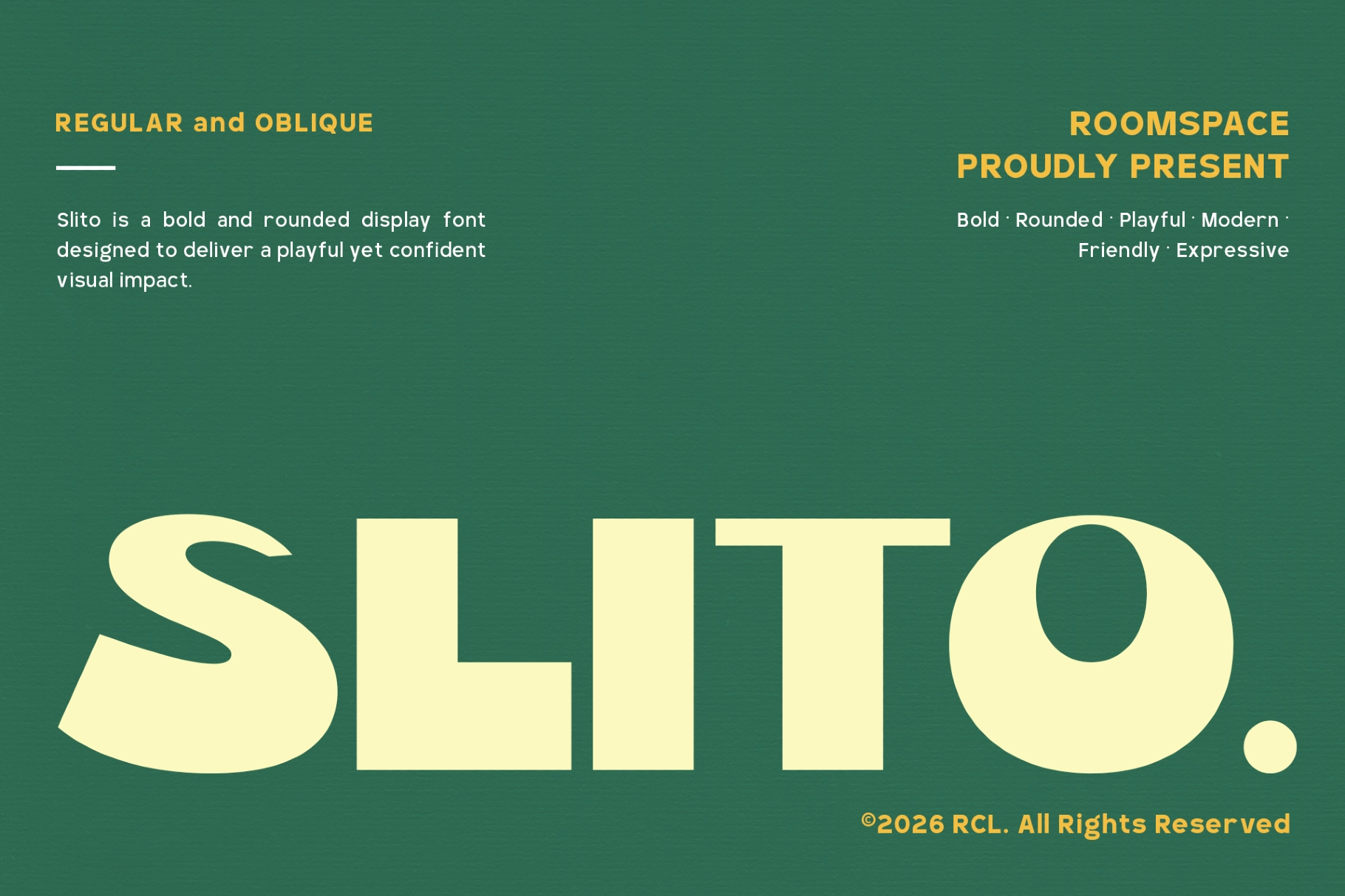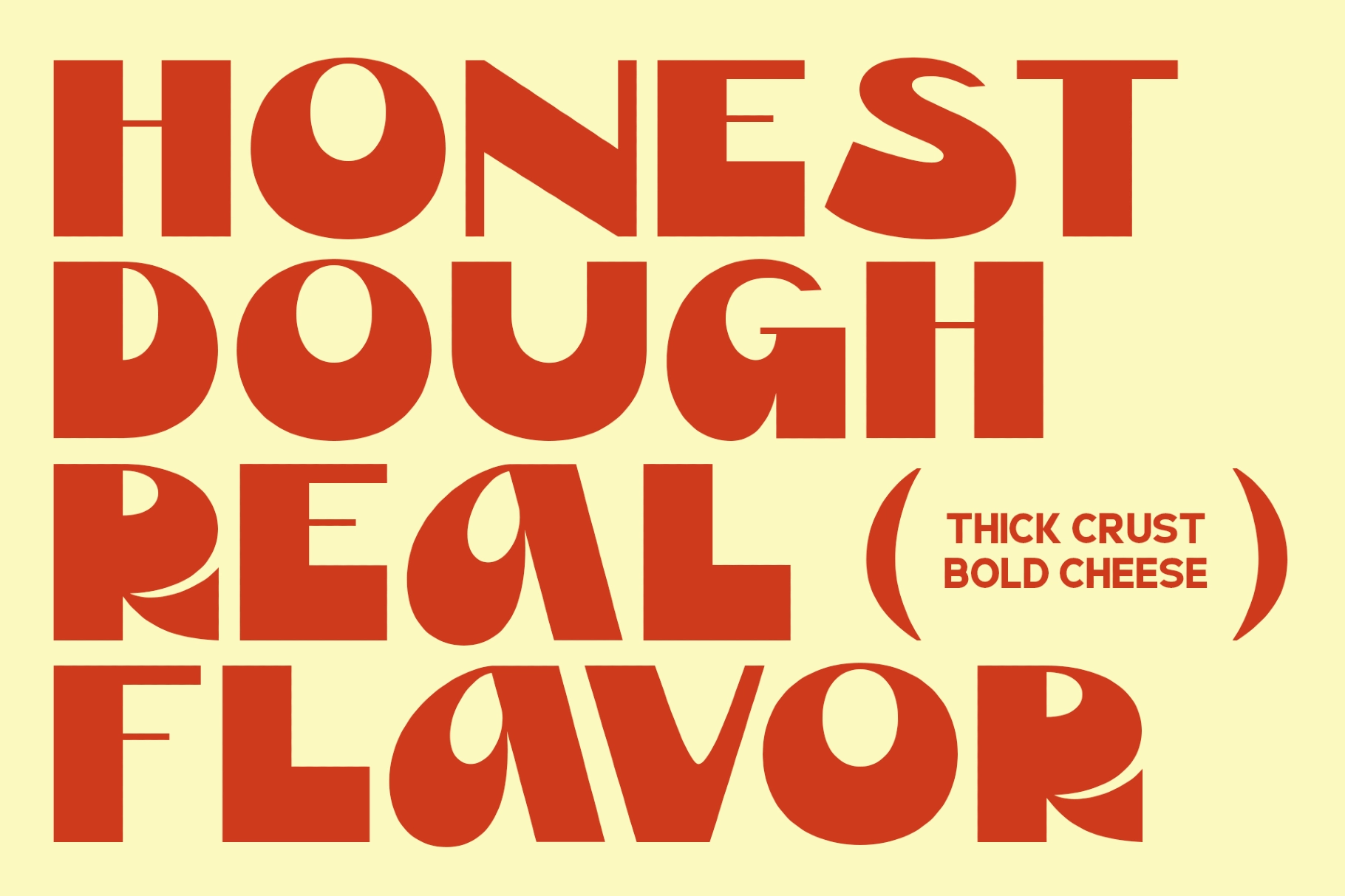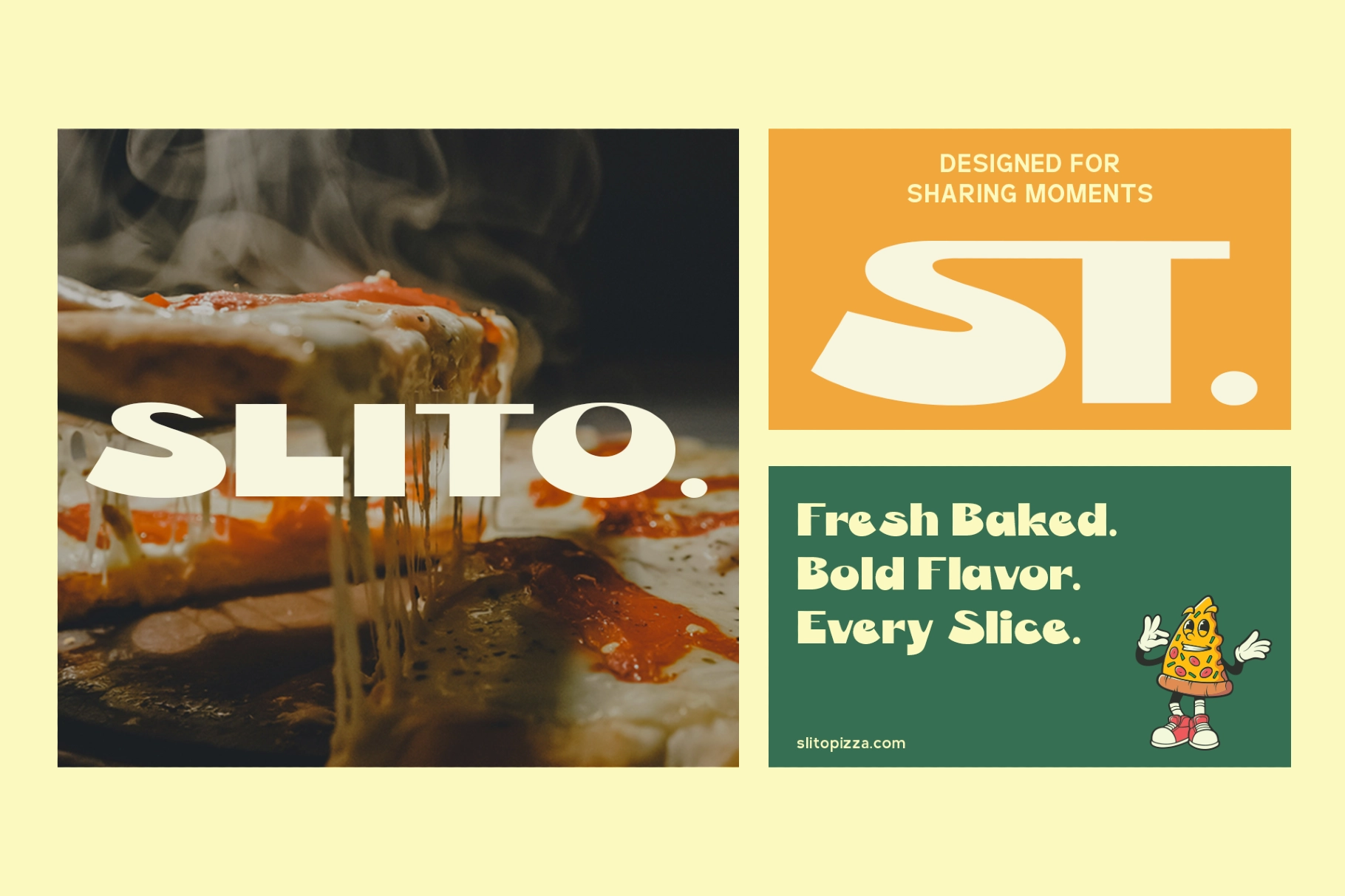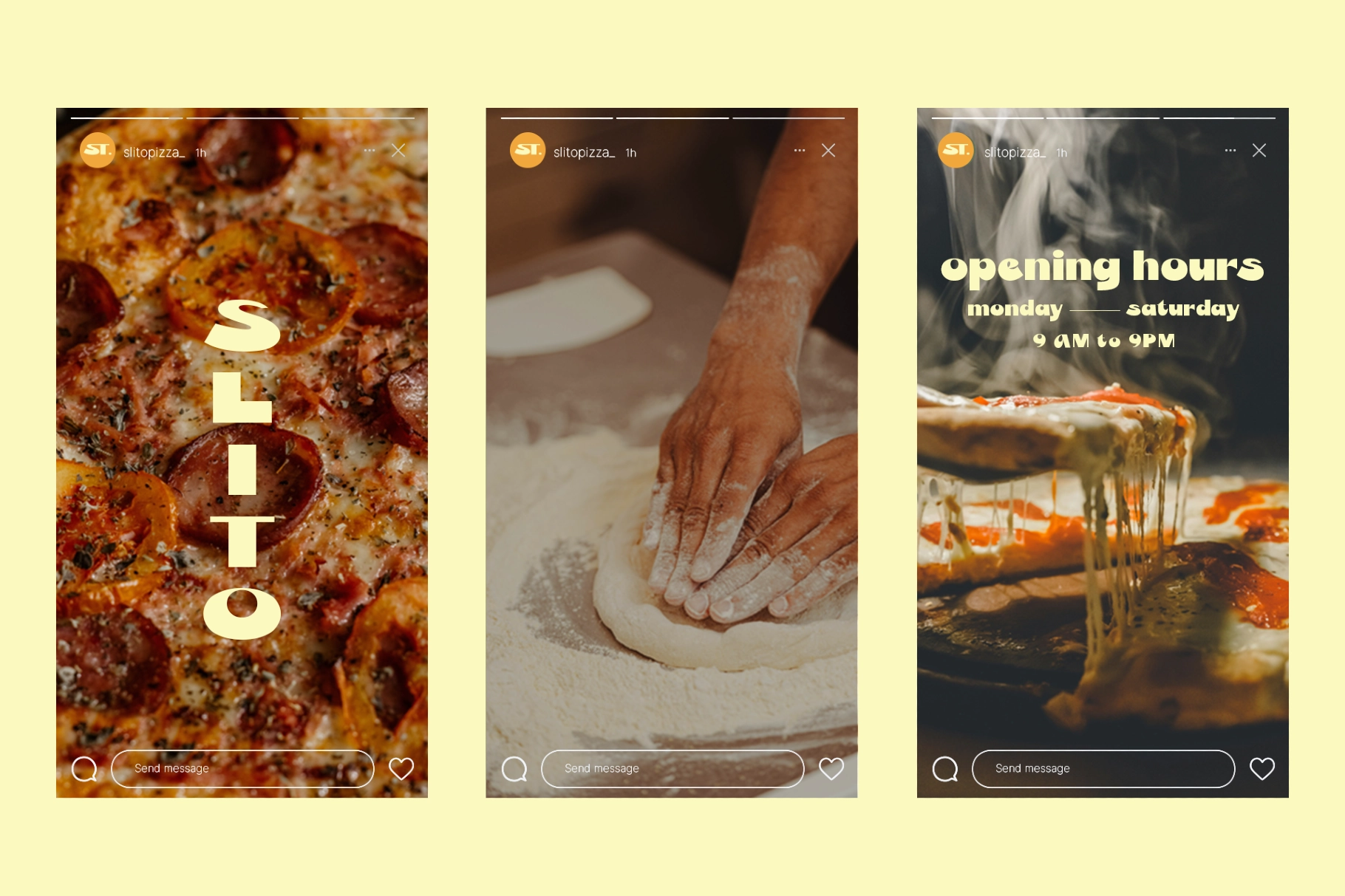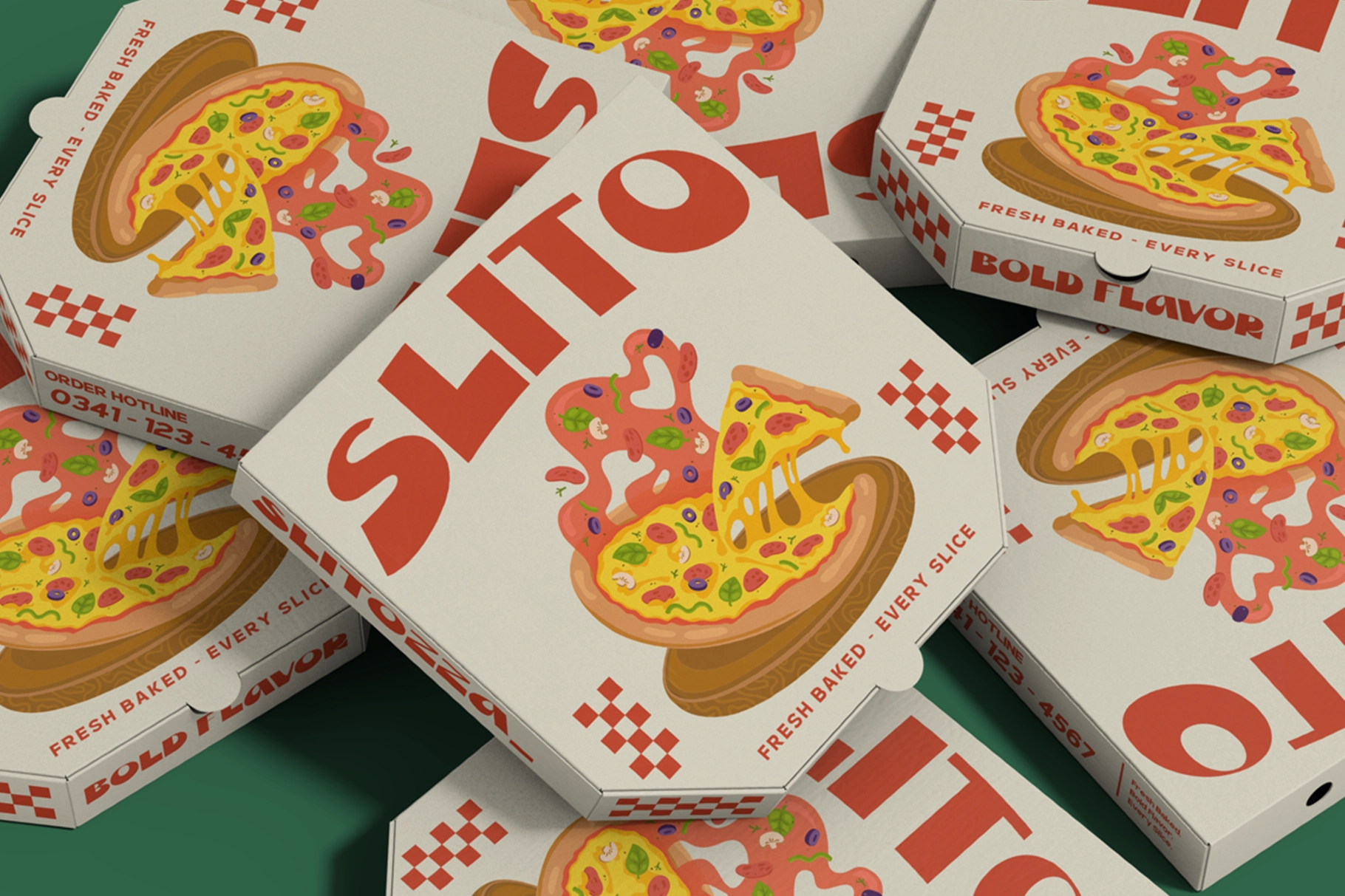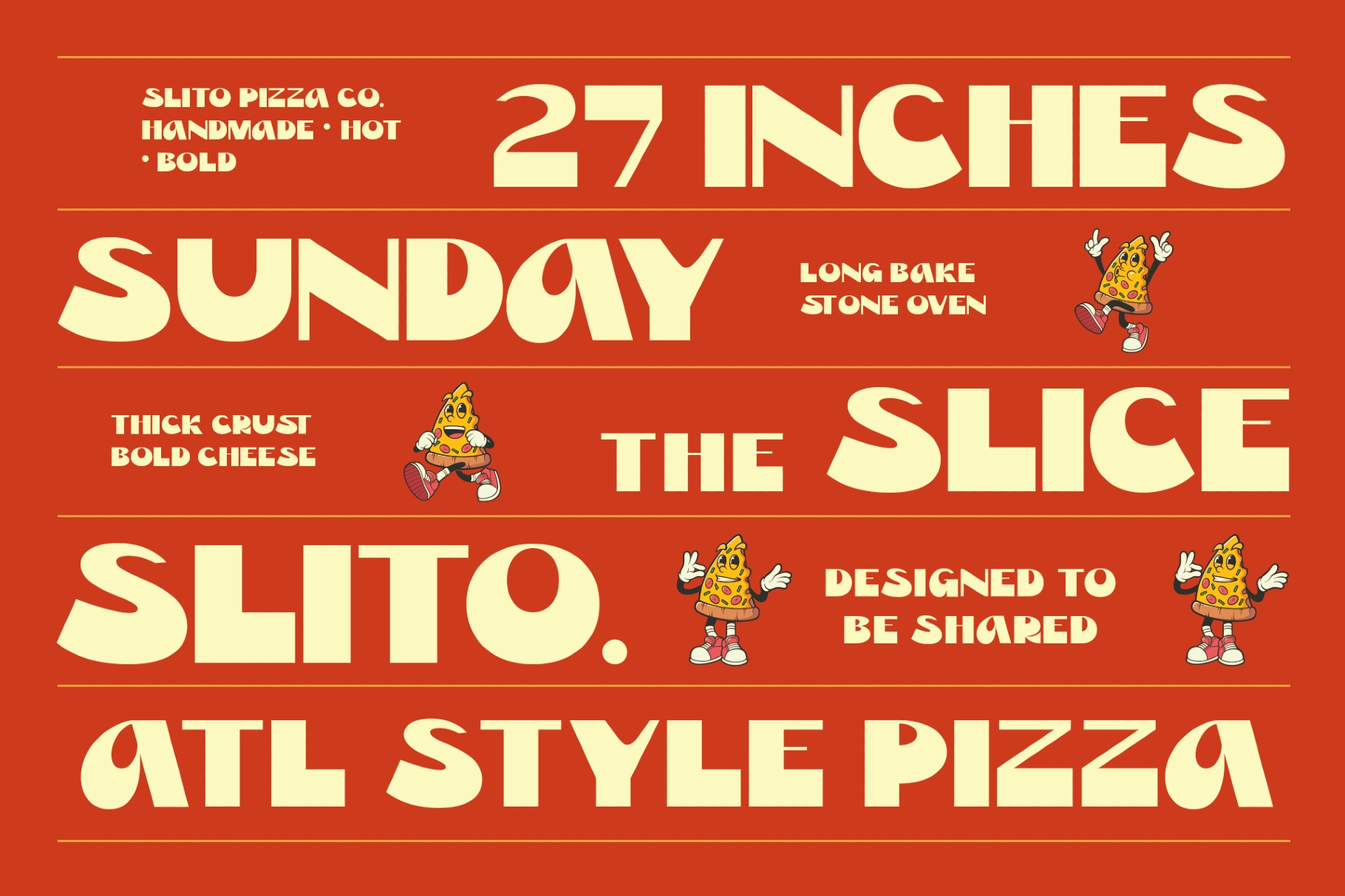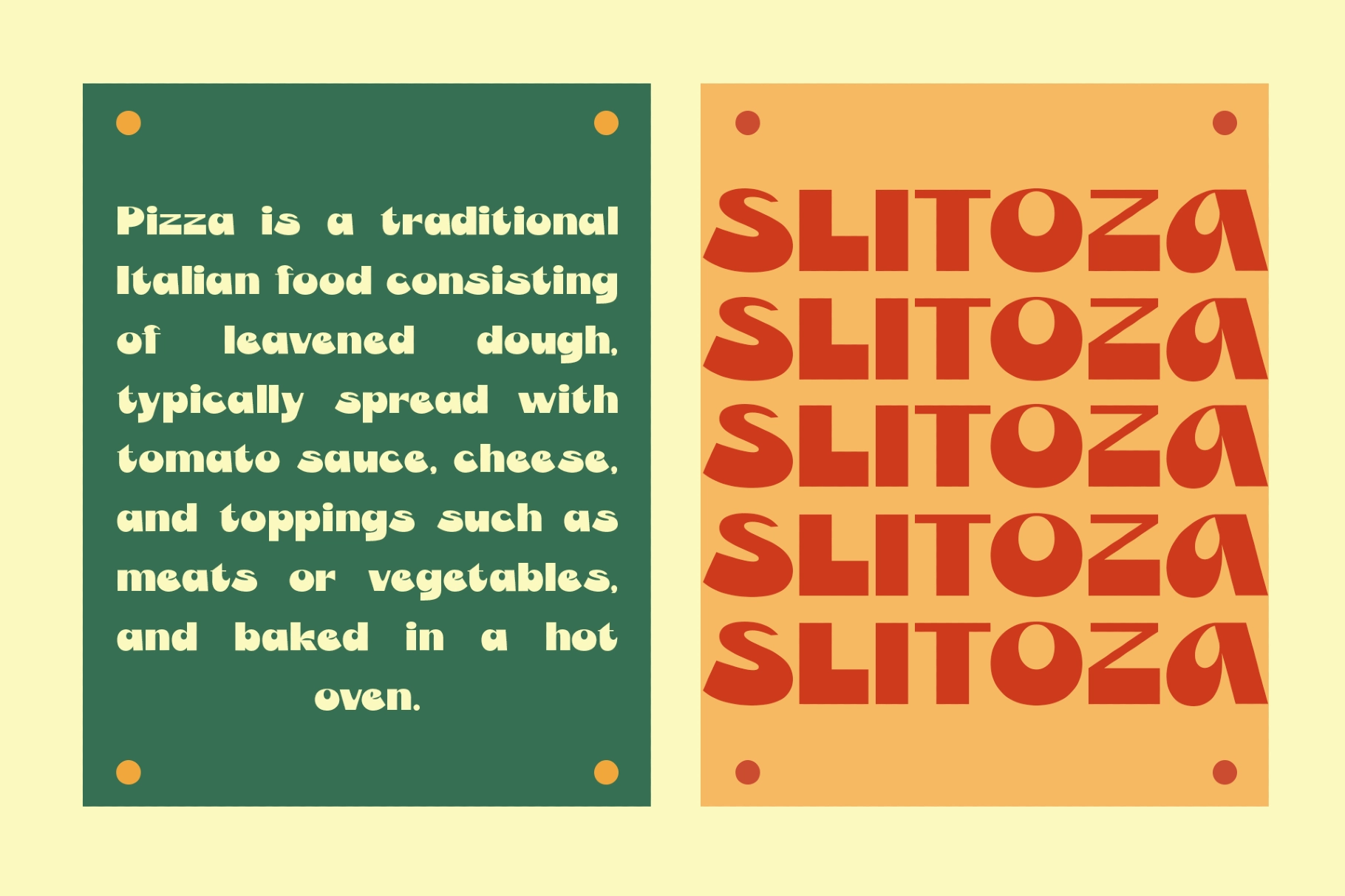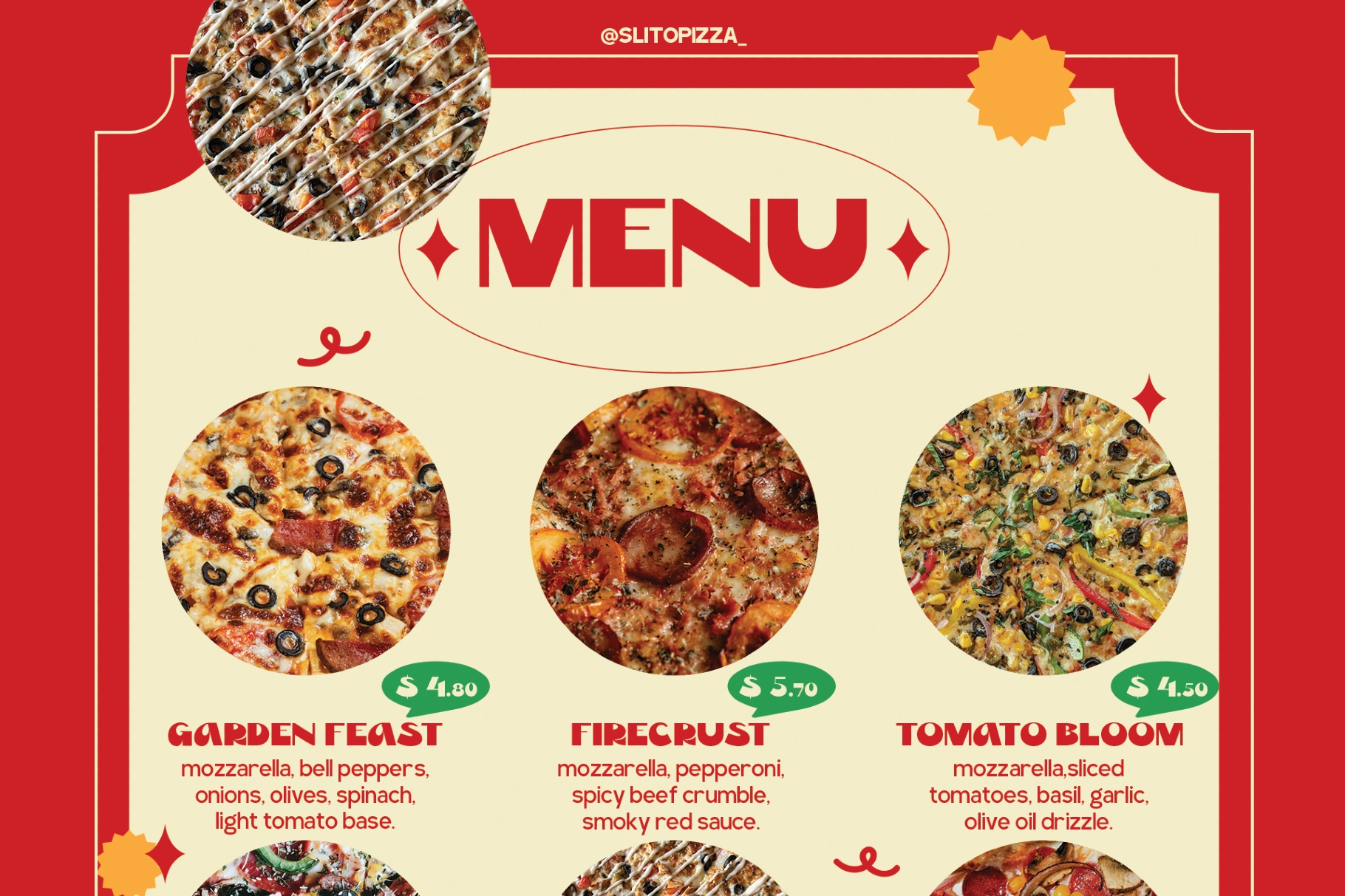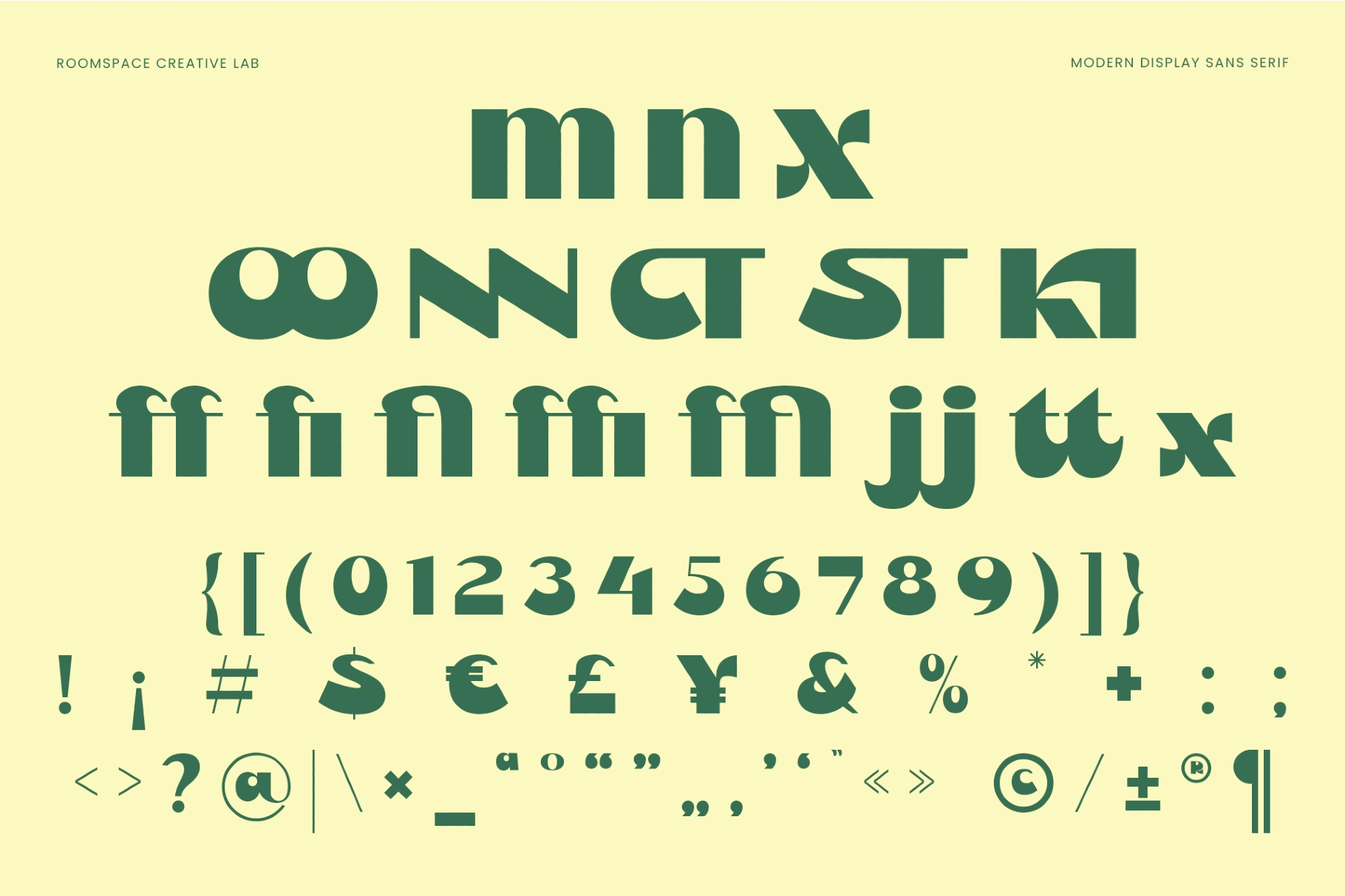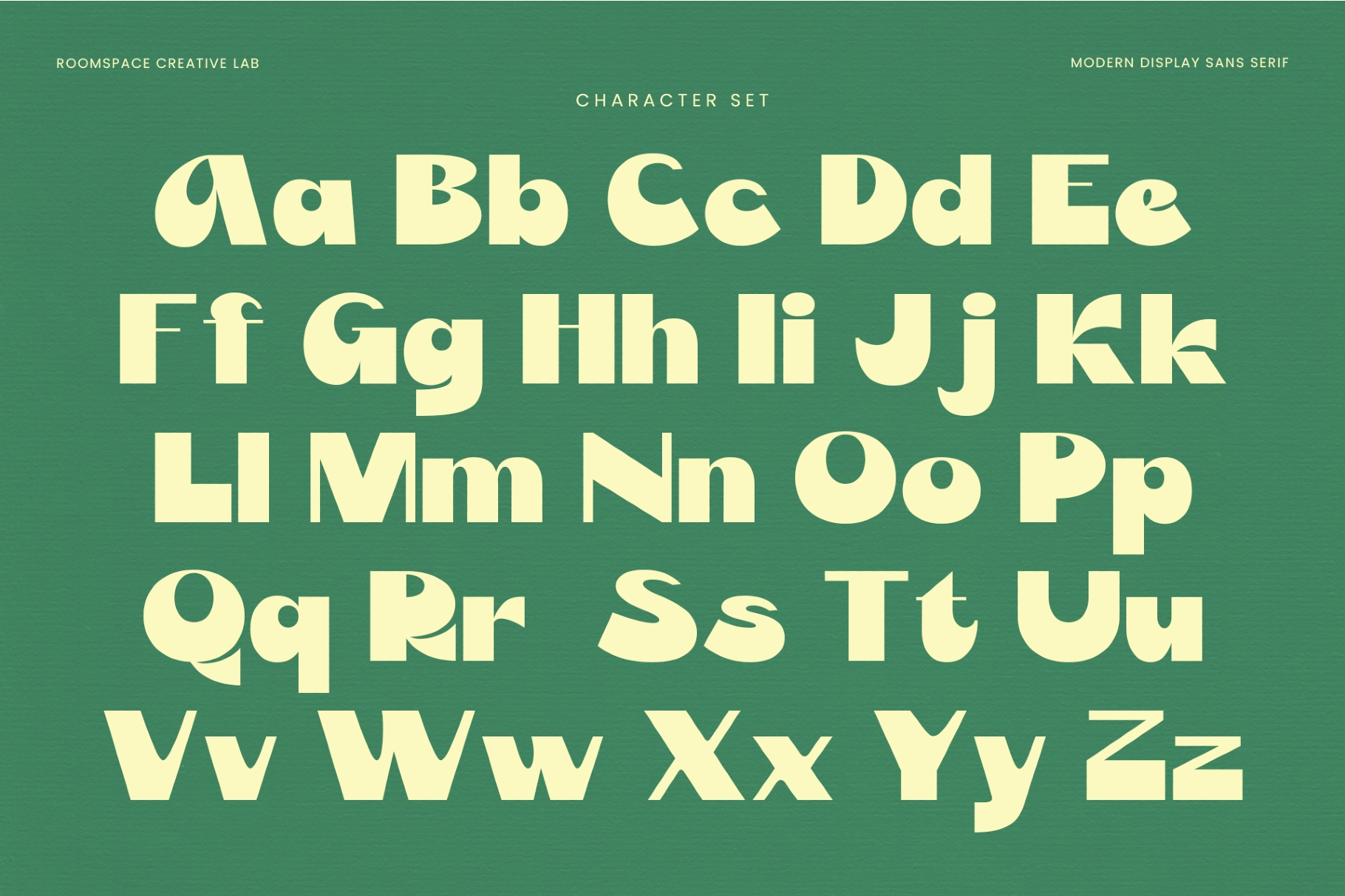
Slito - Playful Display Sans Font
This playful display font has chunky letterforms, rounded cuts, and quirky alternates that give headlines a bright, food-truck-sign kind of attitude. The sans serif structure is bold and friendly, with wide shapes that work well for big titles, short phrases, and graphic layouts that need instant character.
Slito is a strong fit for pizza branding, cafe menus, snack packaging, restaurant logos, poster headlines, children’s product labels, food delivery campaigns, merch graphics, social media posts, stickers, event flyers, web banners, and retro-inspired identity systems. The Regular style brings a solid, rounded voice for main titles, while the Oblique adds extra motion for callouts, price tags, captions, and playful typographic accents.
- 2 styles: Regular, Oblique
- Alternates